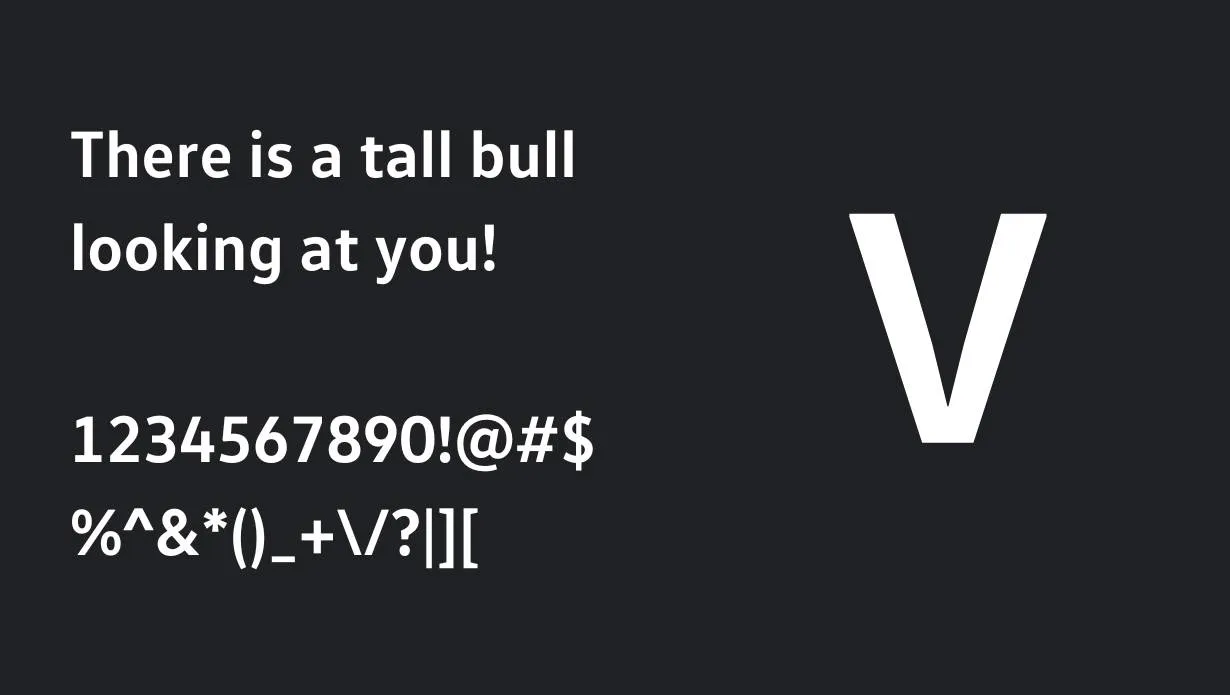
Hit the road with the Volkswagen font, a famous typeface linked to the well-known German automotive brand. The specific designer of this font is unknown, but it is categorized as a sans-serif typeface that is both corporate and modern.
Its regular weight exudes a sense of reliability and professionalism, making it a staple in the branding of Volkswagen. This font, with its clean lines and straightforward design, is a testament to the brand’s timeless and enduring identity.
- Volkswagen Regular
View of Volkswagen Font
| Name | Volkswagen Font |
| Designer | Luc de Groot and Erik Spiekermann |